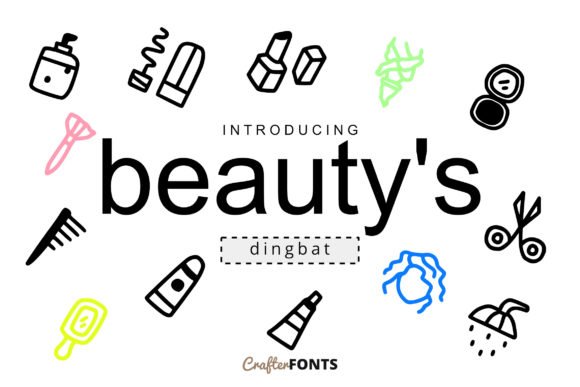
Unleash Your Creativity with Beauty’s Doodle Dingbat Font
Have you ever stared at a blank canvas, itching to create something beautiful, but struggling to find the perfect starting point? This is a moment many designers can relate to. It’s that spark of inspiration that sets the creative wheels in motion, and suddenly, ideas start flowing. For designers looking to add a touch of whimsy and personality to their projects, Beauty’s Doodle Dingbat Font is the perfect solution.
This charming dingbats font is designed to bring a smile to your face and add a playful twist to your designs. With 62 unique symbols, Beauty’s Doodle Dingbat Font is the ultimate tool for creating eye-catching logos, ornaments, and more. Whether you’re working on a children’s book, a fashion brand, or a quirky greeting card, this font is sure to add a touch of magic to your creations.
Beauty’s Doodle Dingbat Font Key Features
- Character Set: Includes a wide range of doodle dingbat characters, including flowers, animals, and abstract shapes, totaling 500+ glyphs.
- Size and Resolution: Designed to be scalable, with a minimum size of 12pt and a recommended resolution of 300 DPI for optimal display.
- Unique Characteristics: Features a whimsical, hand-drawn style with intricate details and textures, perfect for adding a touch of personality to designs.
- Font Pairing: Designed to pair well with sans-serif and script fonts, making it an excellent choice for creating visually appealing and balanced designs.
Beauty’s Doodle Dingbat Font Review
I recently had the chance to work with Beauty’s Doodle Dingbat Font, and I must say it’s a unique addition to any design project. ✨ The font’s whimsical, hand-drawn style adds a playful touch to text, making it perfect for creative briefs or social media graphics.
- Easy to read: Despite its doodle-like appearance, the font is surprisingly legible, even at smaller sizes.
- Customizable: The font comes in a range of colors and styles, allowing designers to tailor it to their specific needs.
- Fun and creative: Beauty’s Doodle Dingbat Font is perfect for designers who want to add a bit of personality to their work.
However, there are some limitations to consider. ⚠️ The font may not be suitable for formal or professional projects, as its playful nature may come across as unprofessional. Additionally, the font’s doodle-like style can be distracting if used excessively.
Overall, I’d recommend Beauty’s Doodle Dingbat Font for designers who want to add a touch of creativity and whimsy to their work. While it may not be suitable for all projects, it’s a great addition to any designer’s toolkit.
Getting the Most Out of Beauty’s Doodle Dingbat Font
Experiment with different font sizes and styles to create unique and eye-catching designs. Use the dingbat characters to add visual interest and break up text. You can also combine the font with other fonts to create a unique and playful look.
The Beauty’s Doodle Dingbat font is perfect for adding a touch of whimsy to your designs. Use it for invitations, greeting cards, and other creative projects where you want to add a playful touch. You can also use it to create custom graphics and illustrations.